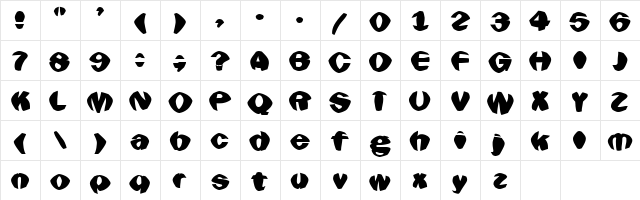
Goldfish Regular Free Font
Goldfish Regular
Foundry: TheBlueJoker
Designer: TheBlueJoker
Design Context for Goldfish
Goldfish is a composed and adaptable typeface that performs quietly and consistently across a wide range of design contexts.